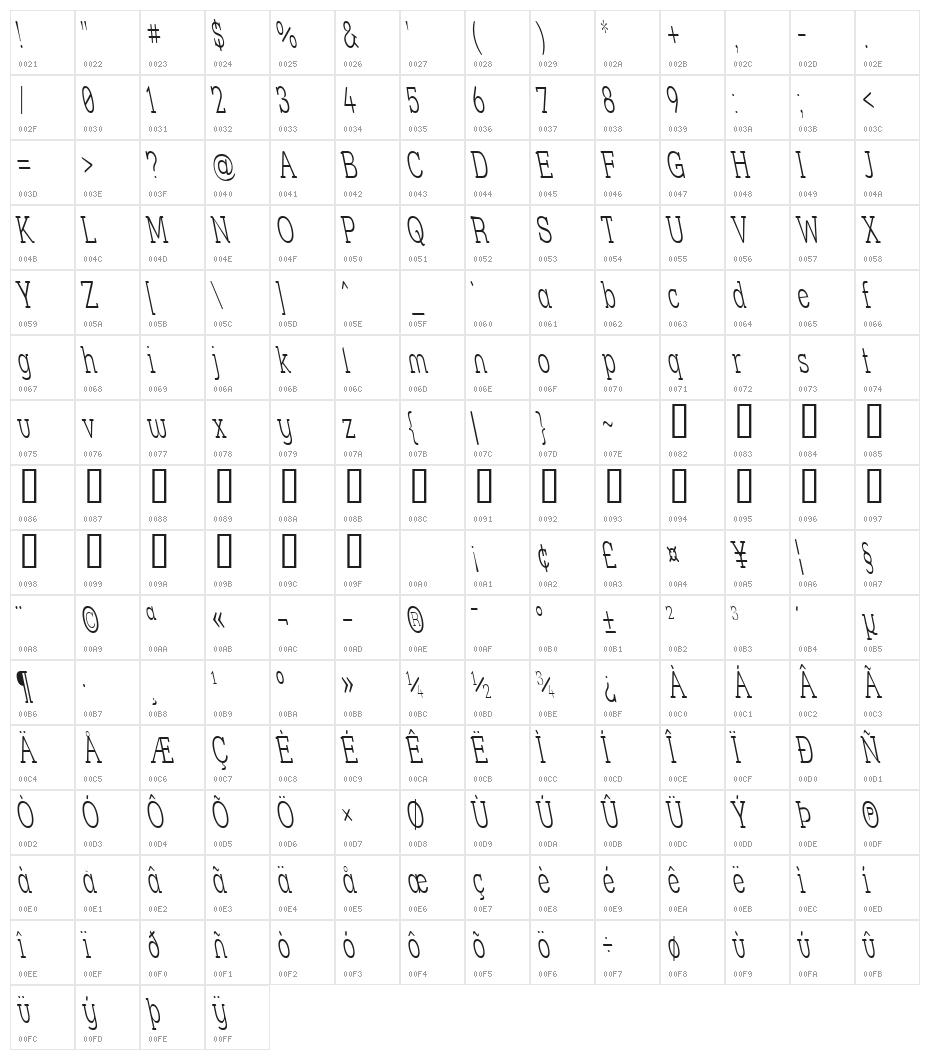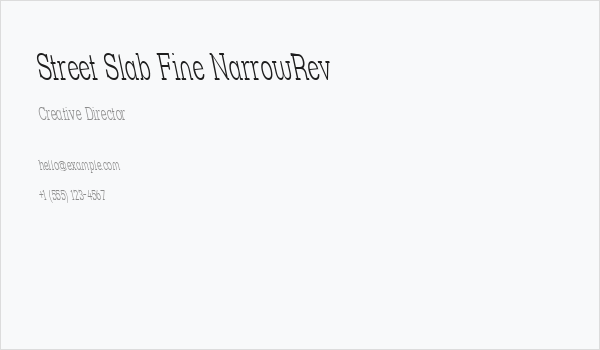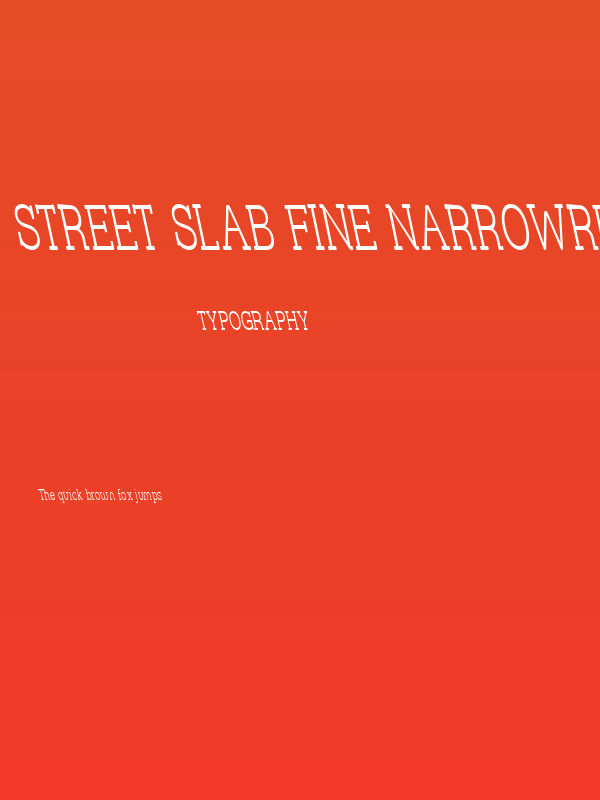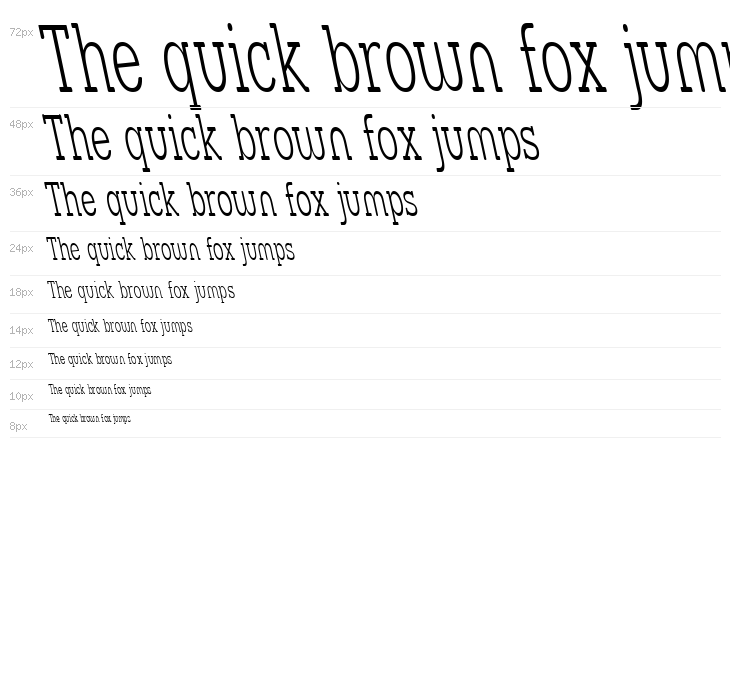
Street Slab Fine NarrowRev Font
Street Slab Fine NarrowRev Description
This font features a distinct slab serif style with narrow letterforms, giving it a refined and elegant appearance. The uppercase characters are bold and prominent, while the lowercase letters maintain a consistent and harmonious flow. The numerals are clear and easily distinguishable, making them suitable for various applications. Special characters are well-defined, adding versatility to the font's usage. The overall design is modern yet retains a classic touch, making it suitable for both contemporary and traditional projects.
| Use Case | Headlines, Logos, Editorial design |
| Proposed Projects | Ideal for editorial design, branding, signage, and packaging where a sophisticated and modern look is desired. |